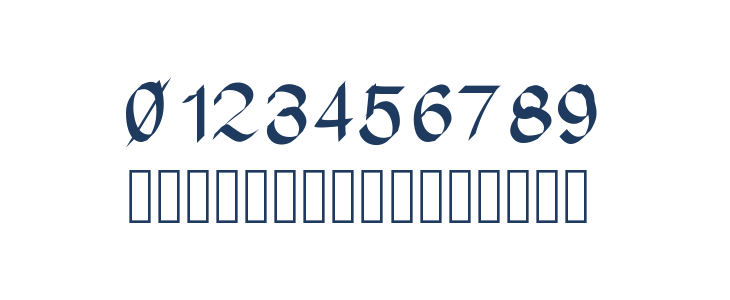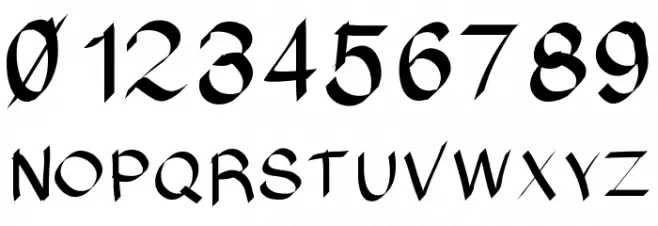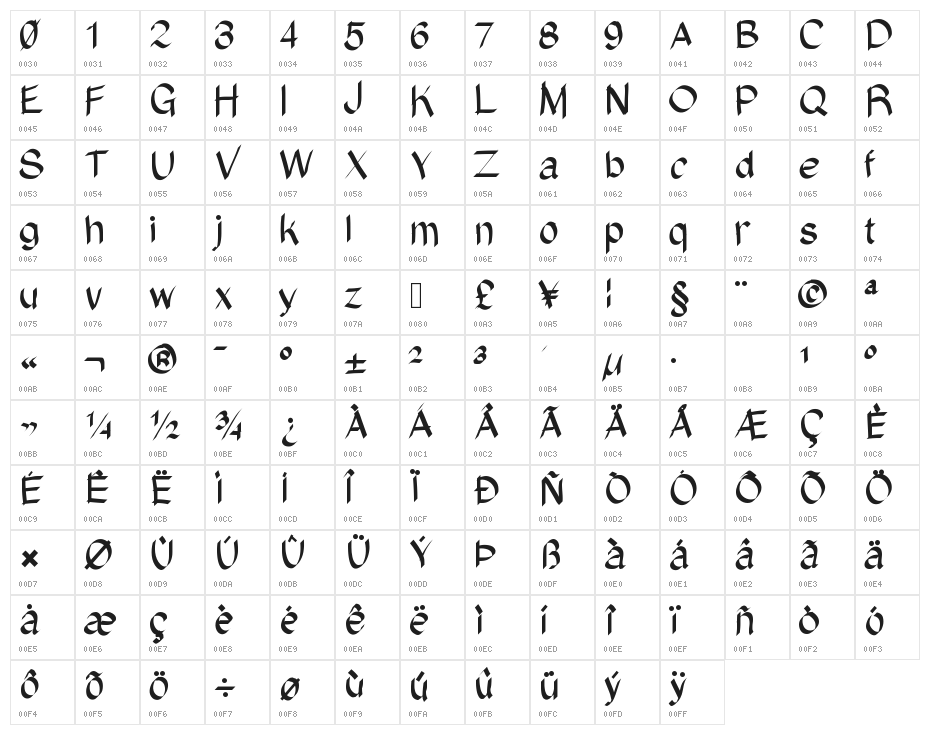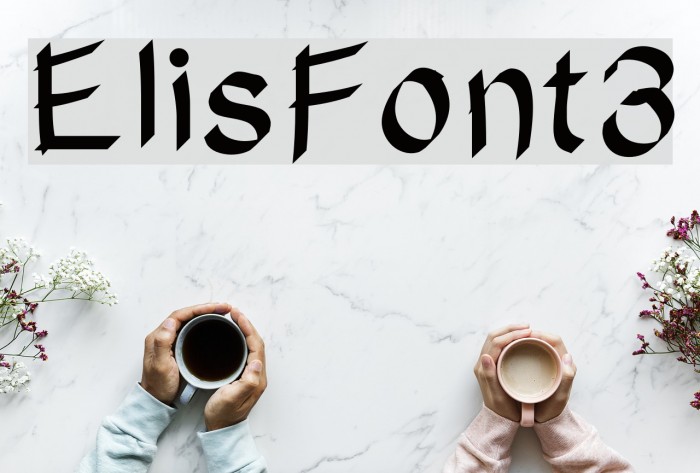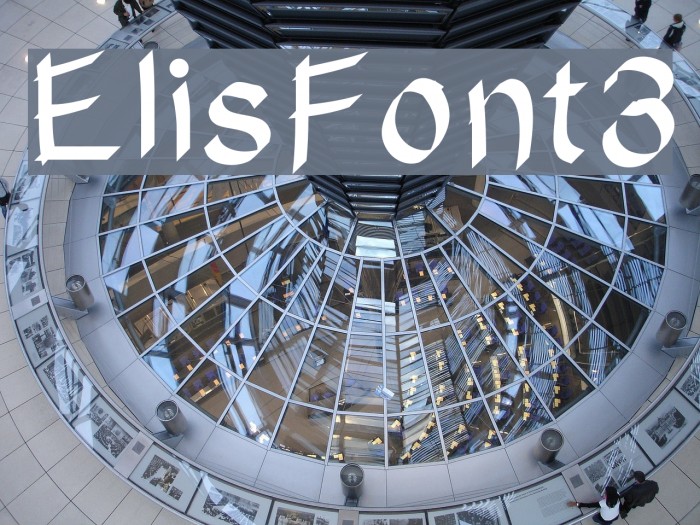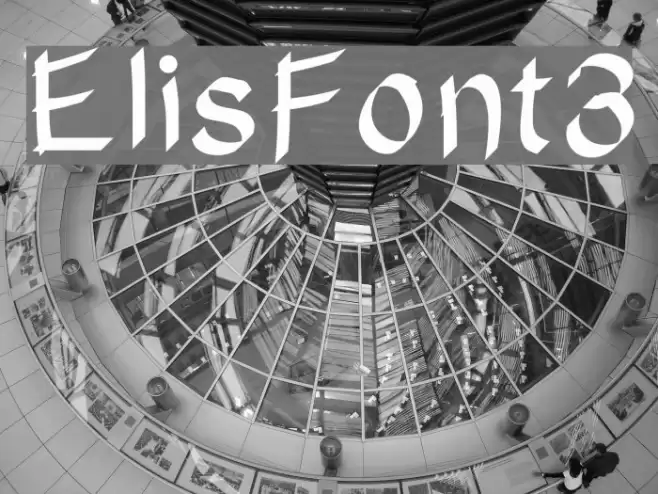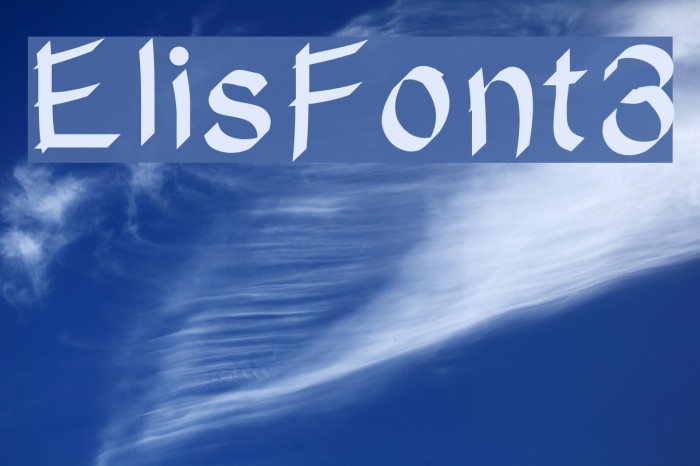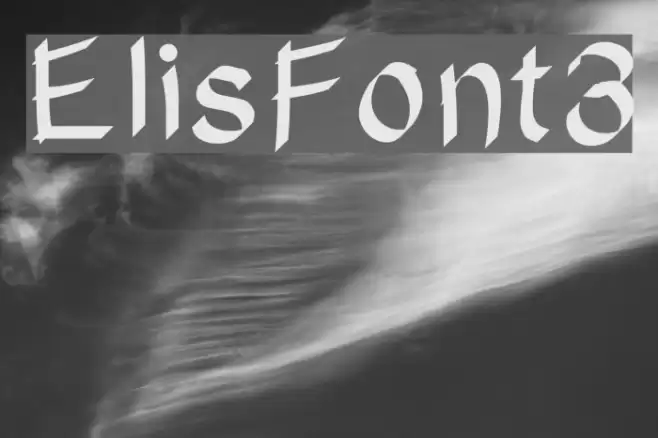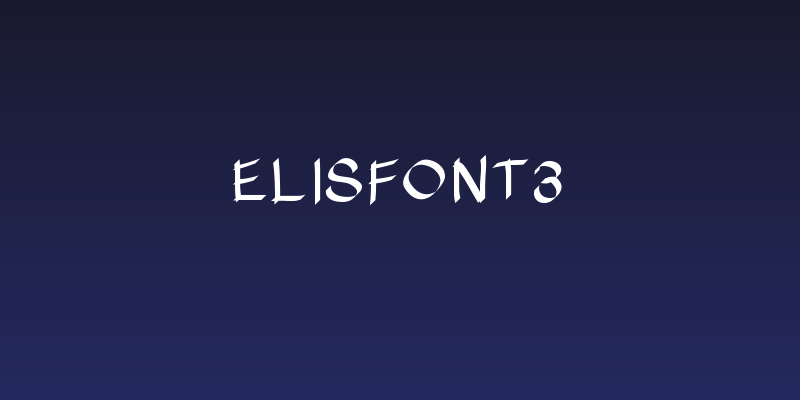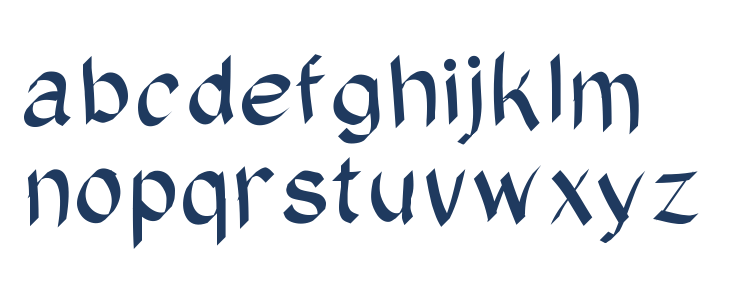
ElisFont3 Font
ElisFont3 Description
This font features a unique and artistic style, characterized by sharp, angular strokes and a dynamic flow. The uppercase letters exhibit a bold presence with pointed serifs and varying line thickness, creating a sense of movement and energy. The lowercase letters maintain this dynamic quality, with some characters having distinctive loops and curves. Numbers are consistent with the overall style, featuring the same angular and bold characteristics. Special characters are designed to match the font's aesthetic, making it suitable for creative and expressive designs.
| Proposed Projects | Ideal for branding, posters, album covers, and creative projects that require a bold and artistic touch. |